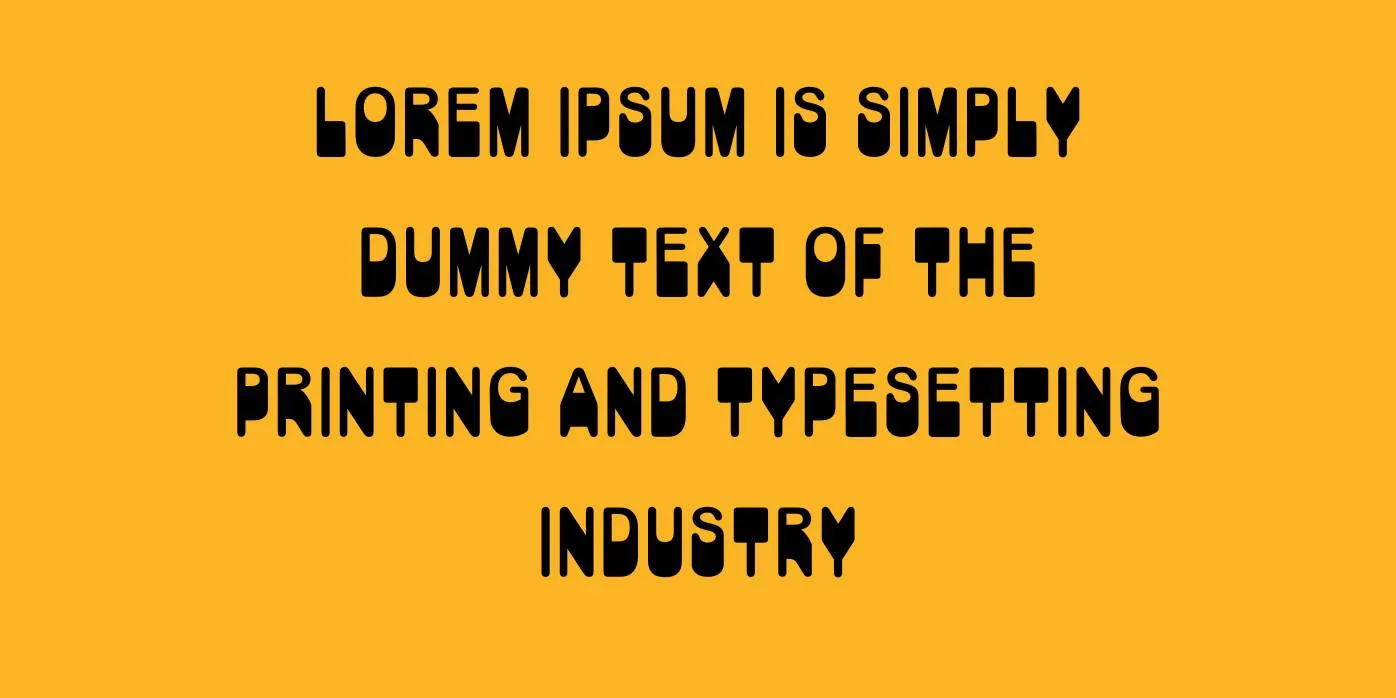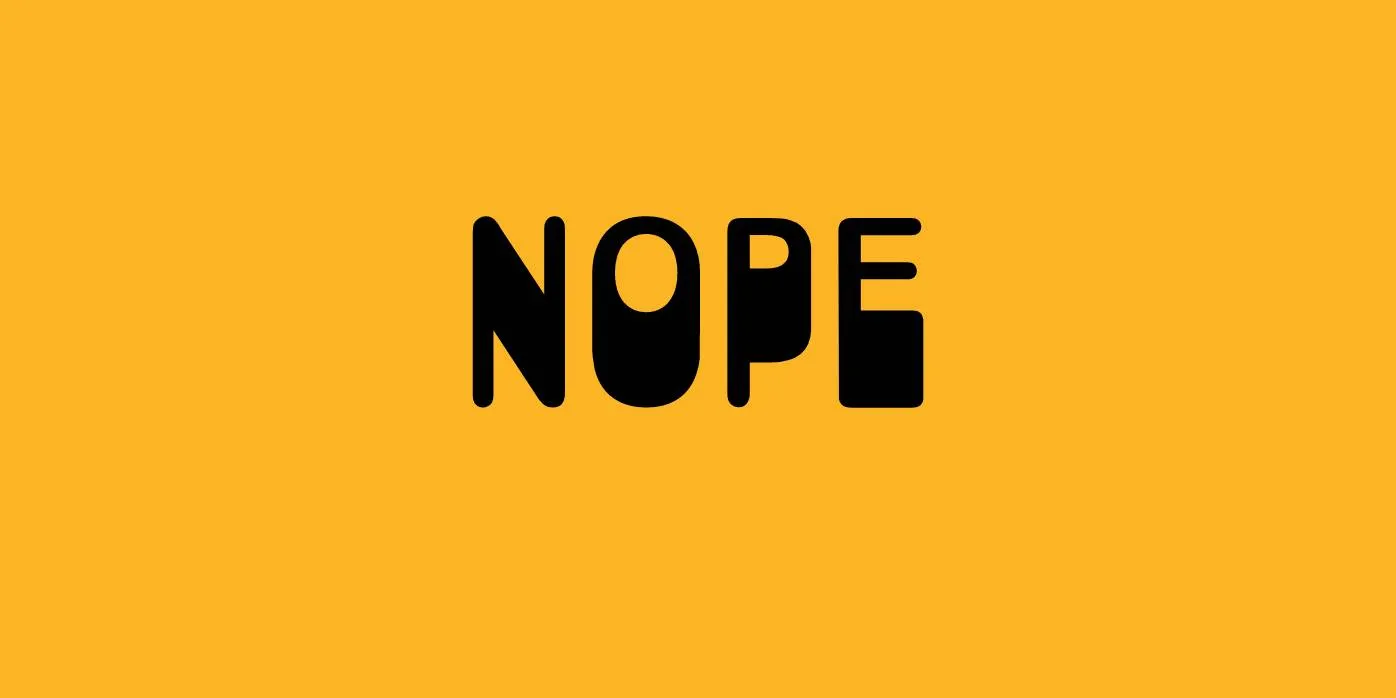
Nope Font
Nope Font is a sans-serif typeface. This typeface is free of cost for both types of projects and designs. If you are interested in using this typeface in any of your projects. Then use this typeface without any tension, because you do not need to buy any type of license for this texture.